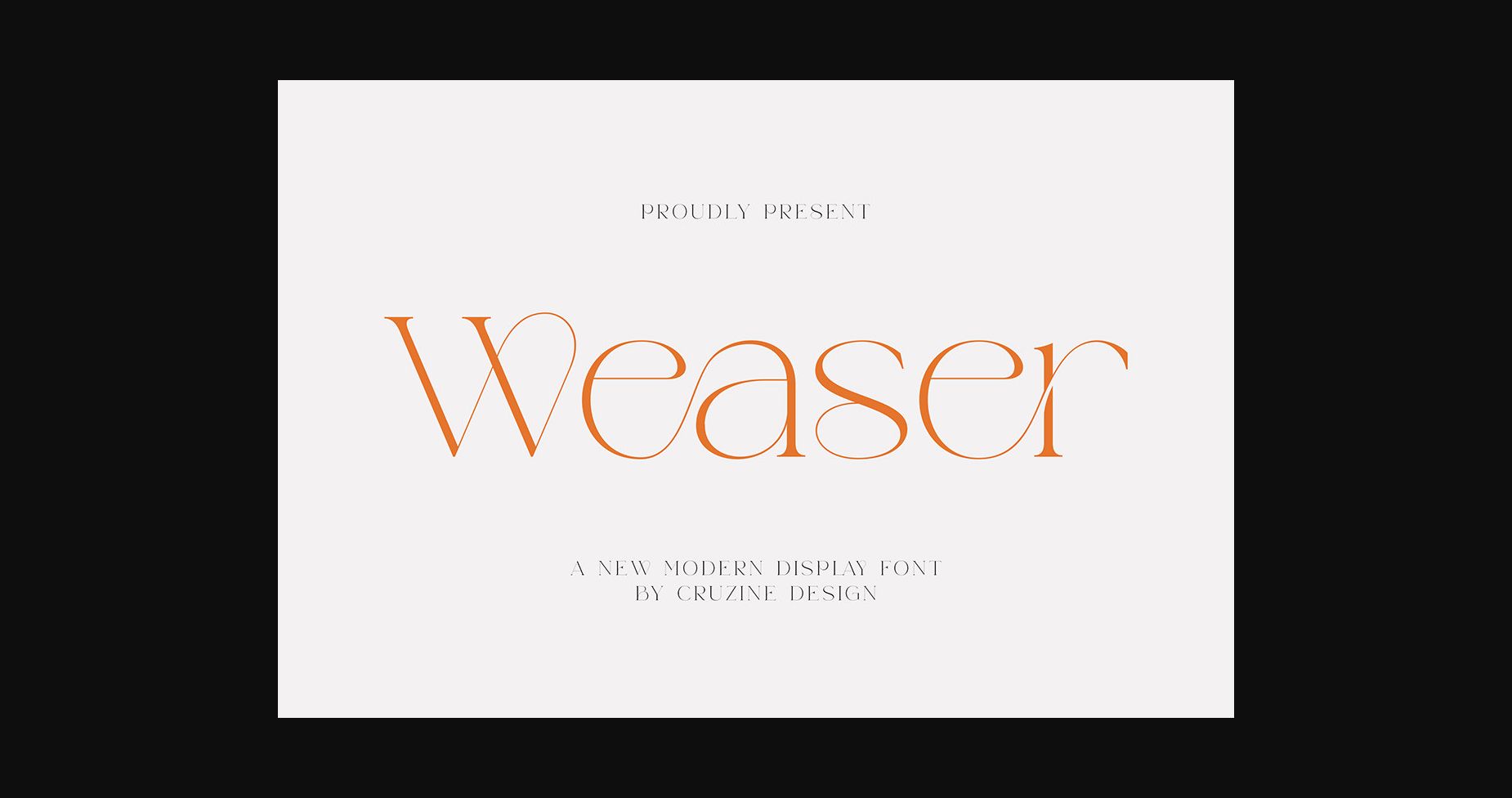
About Weaser Font
Weaser is an exclusive and stylish sans-serif font that is perfect for anyone looking for a modern and trendy look. With its sleek lines and sharp edges, this font will add a sophisticated touch to any design. Keep in mind that the font is PUA encoded, meaning that you can access all delightful glyphs and swashes effortlessly.